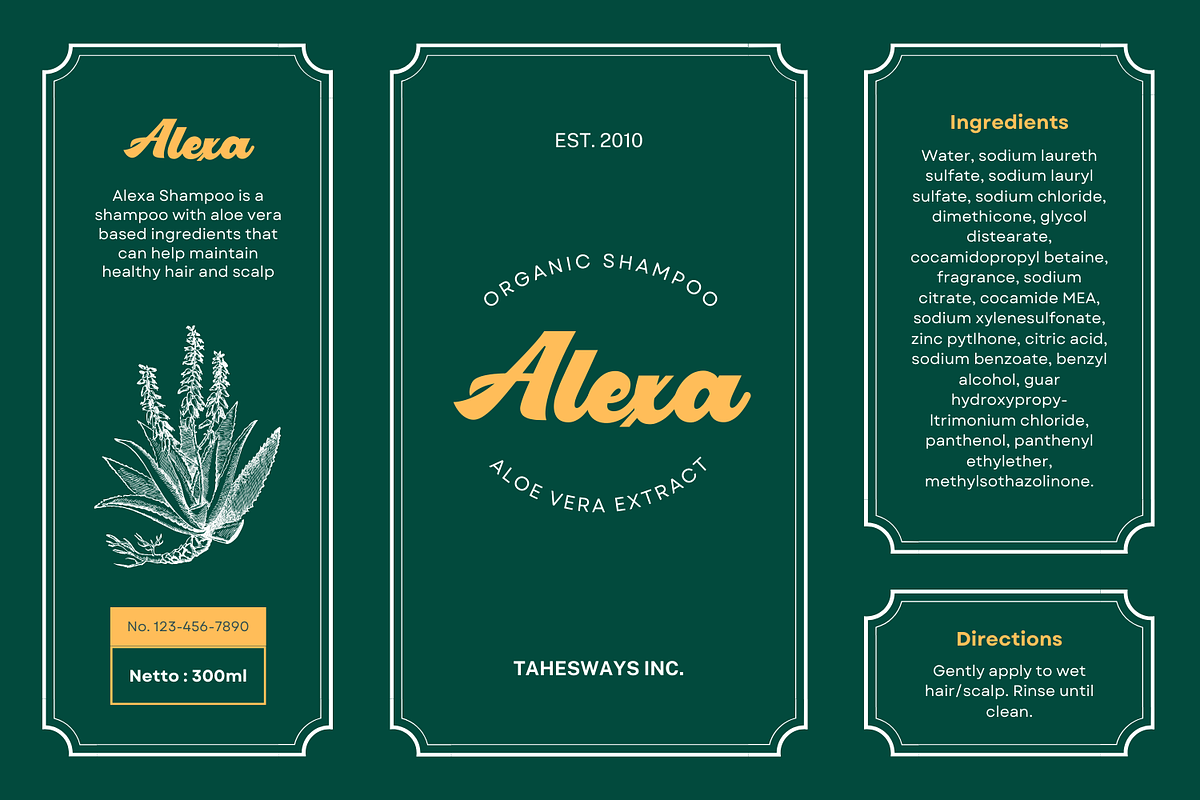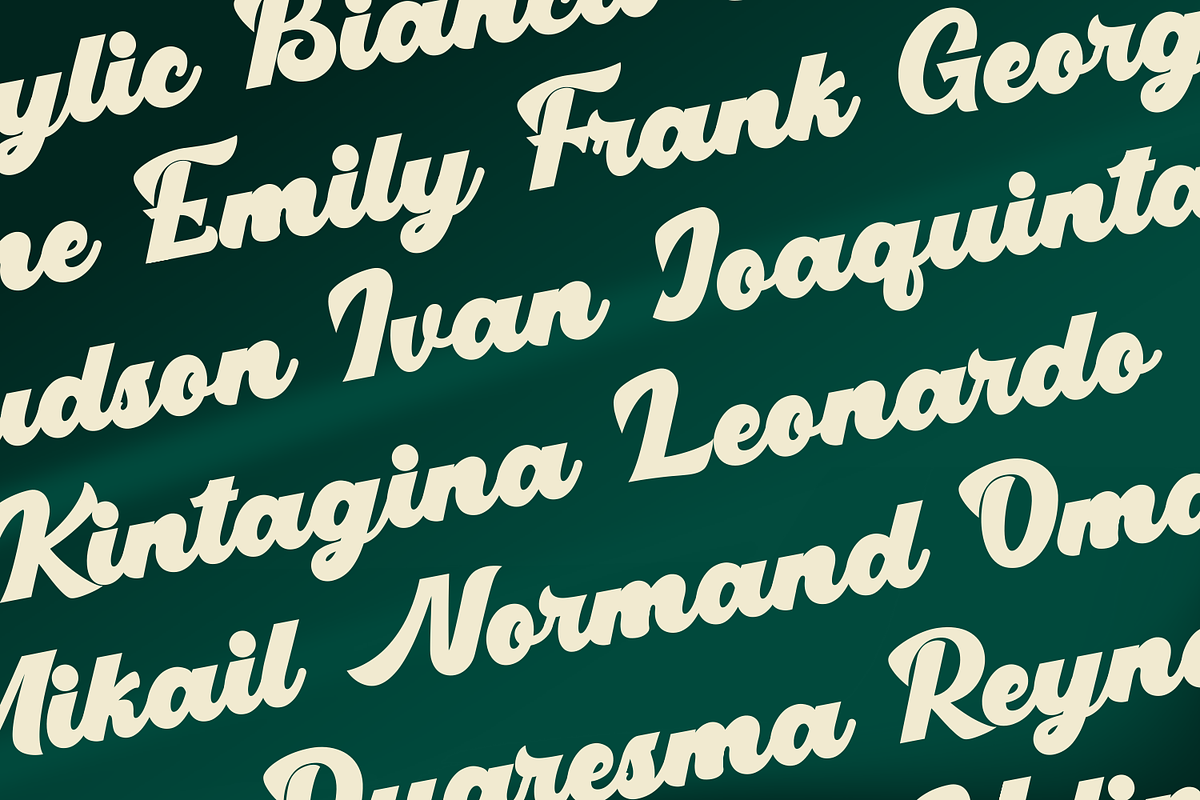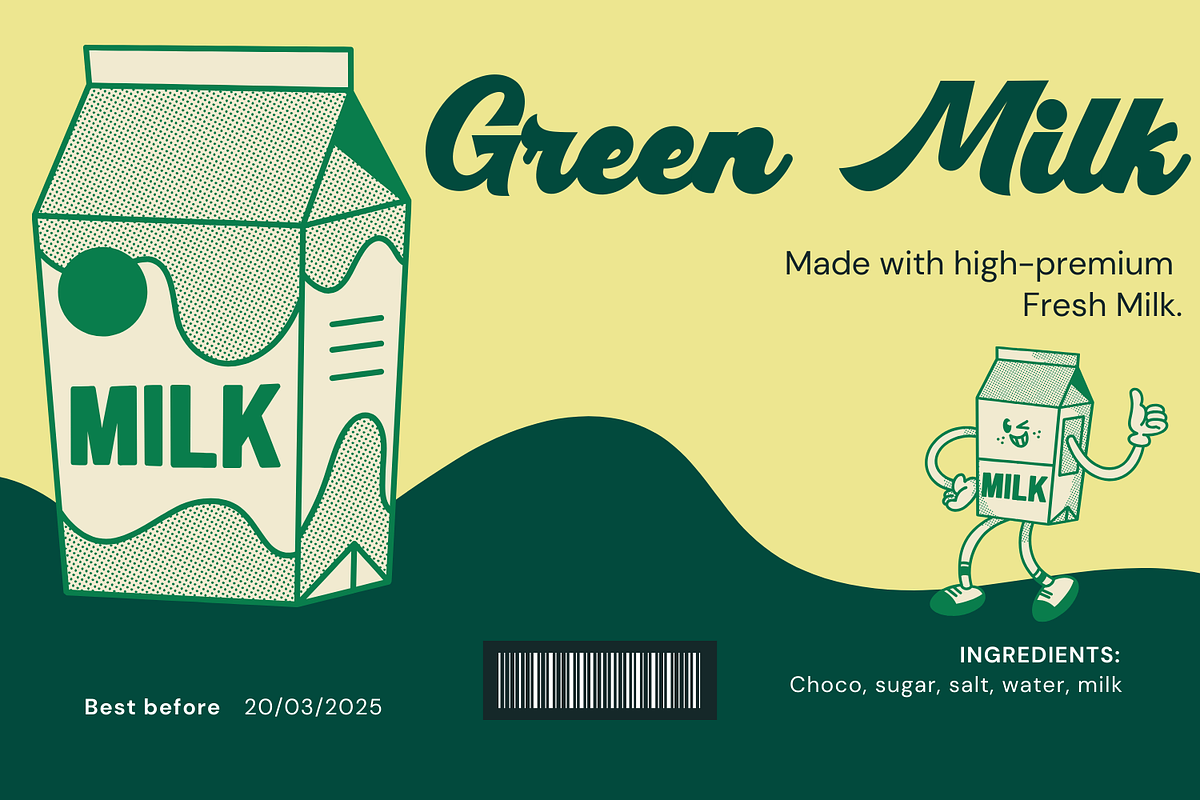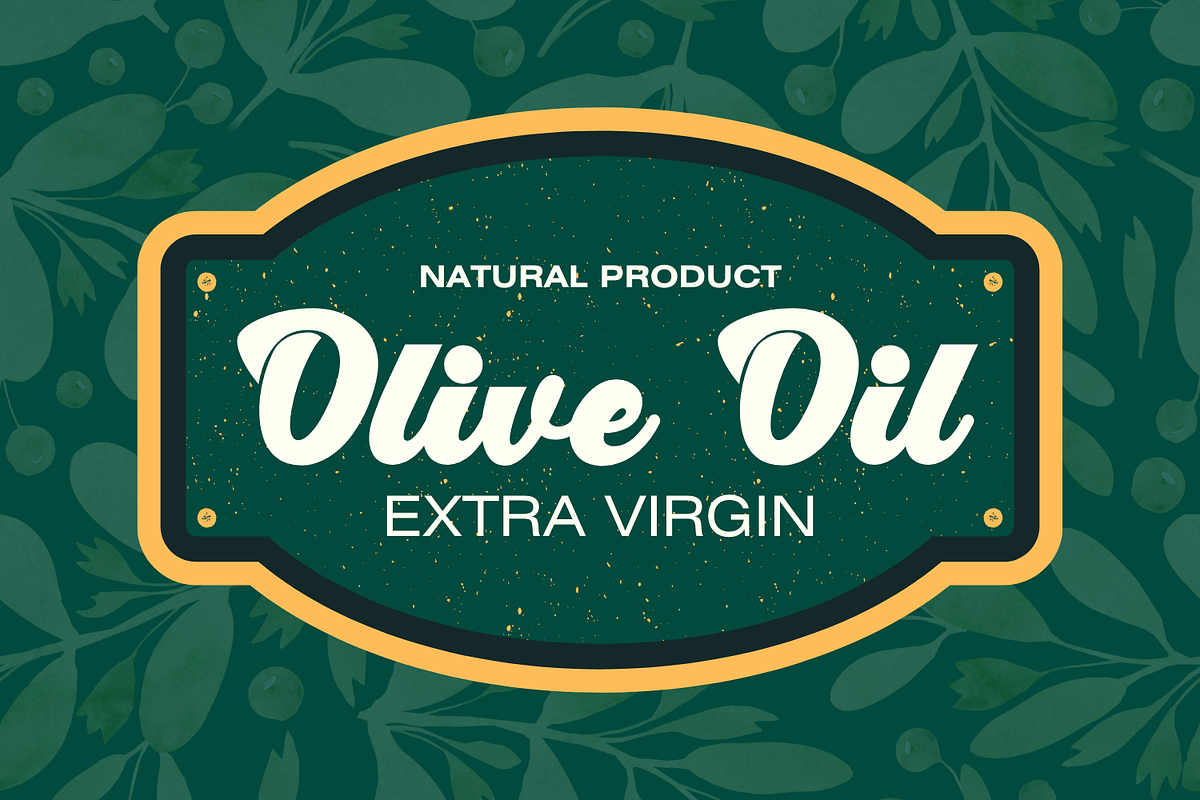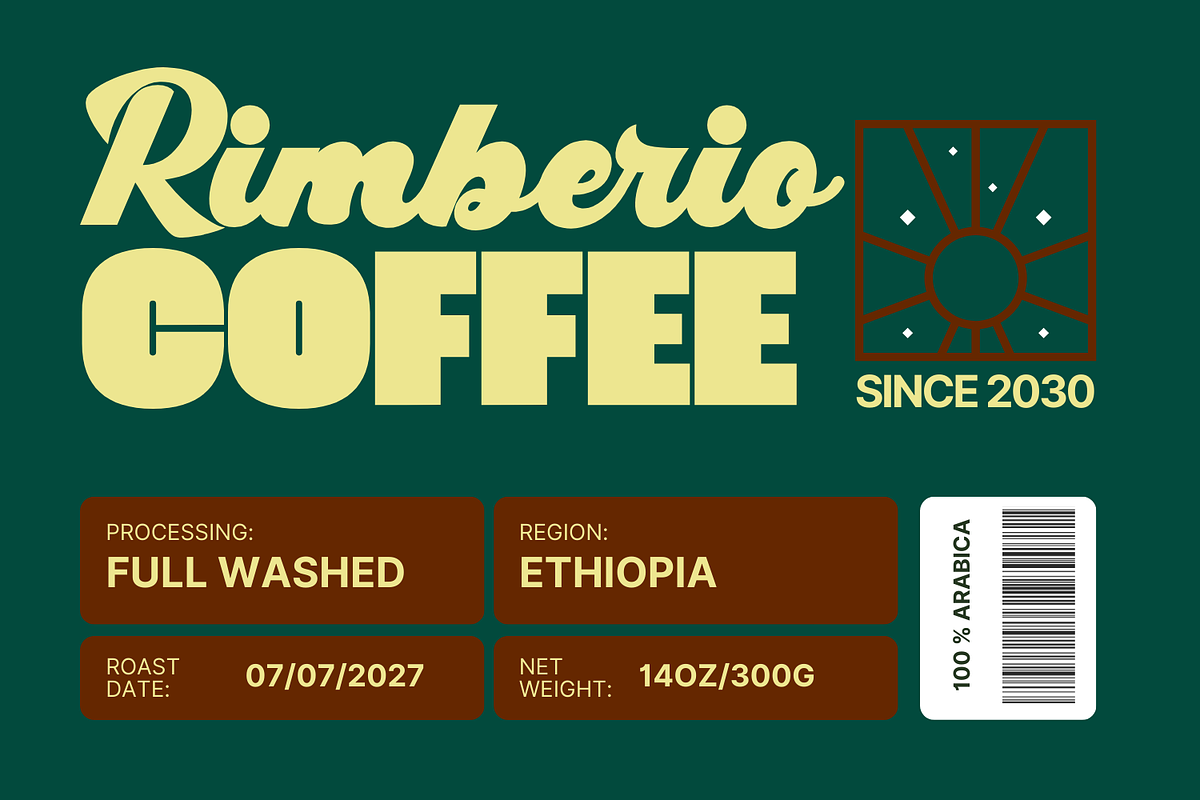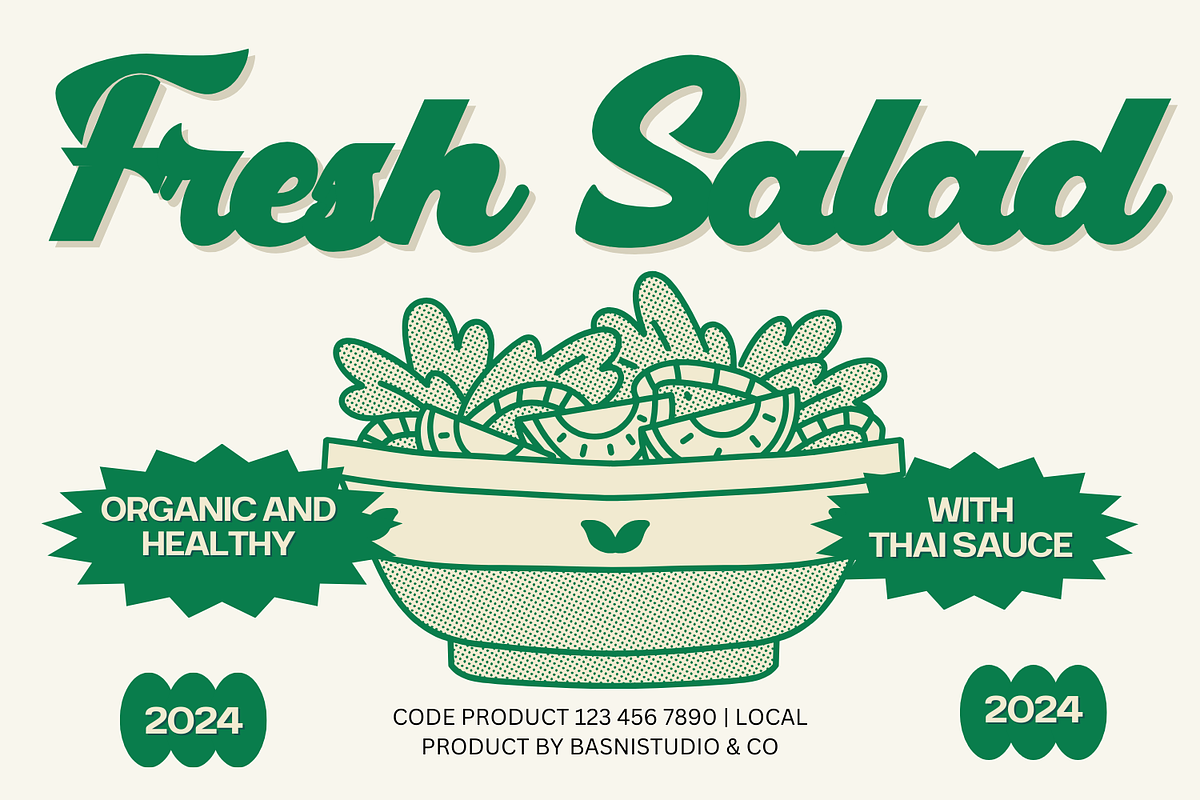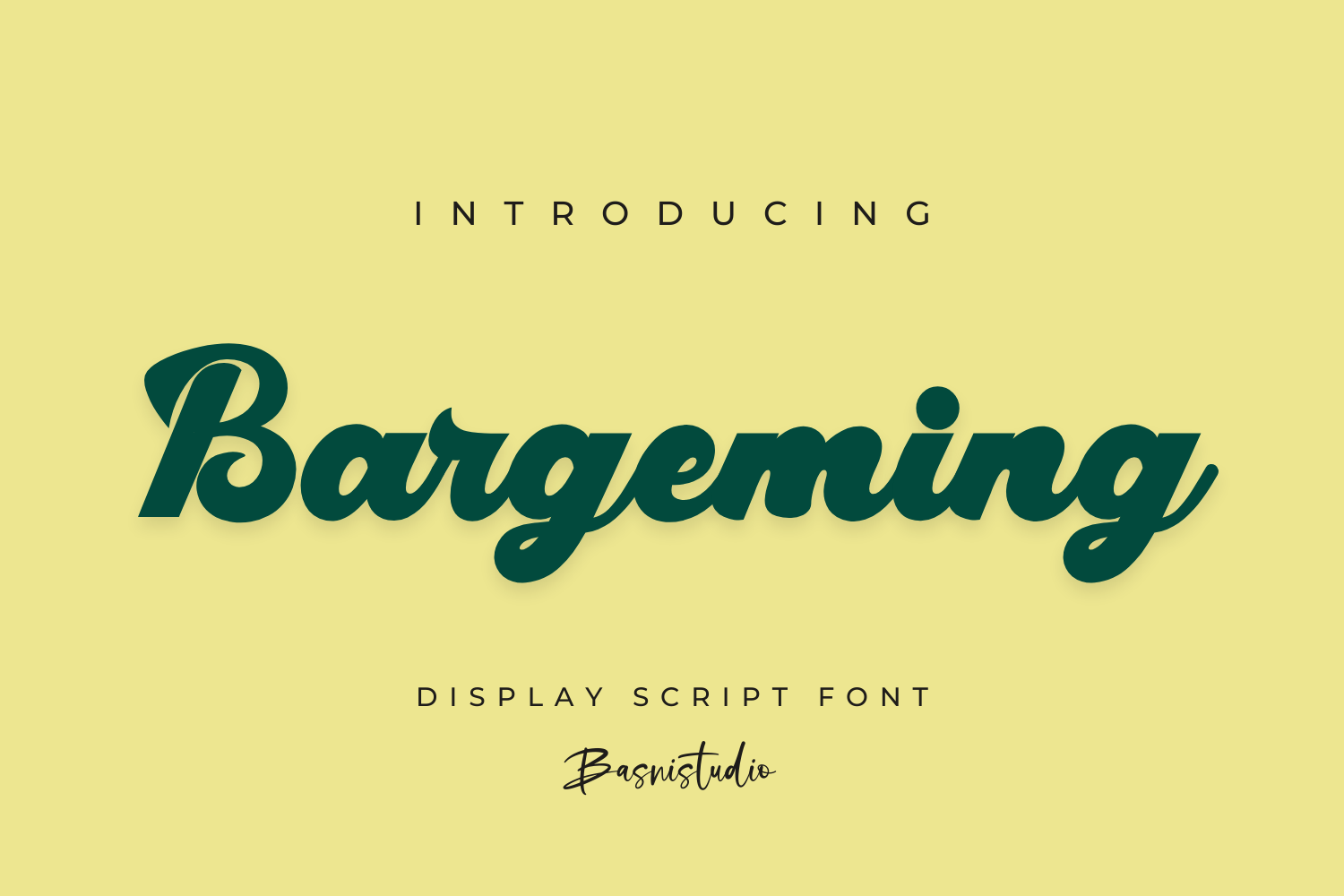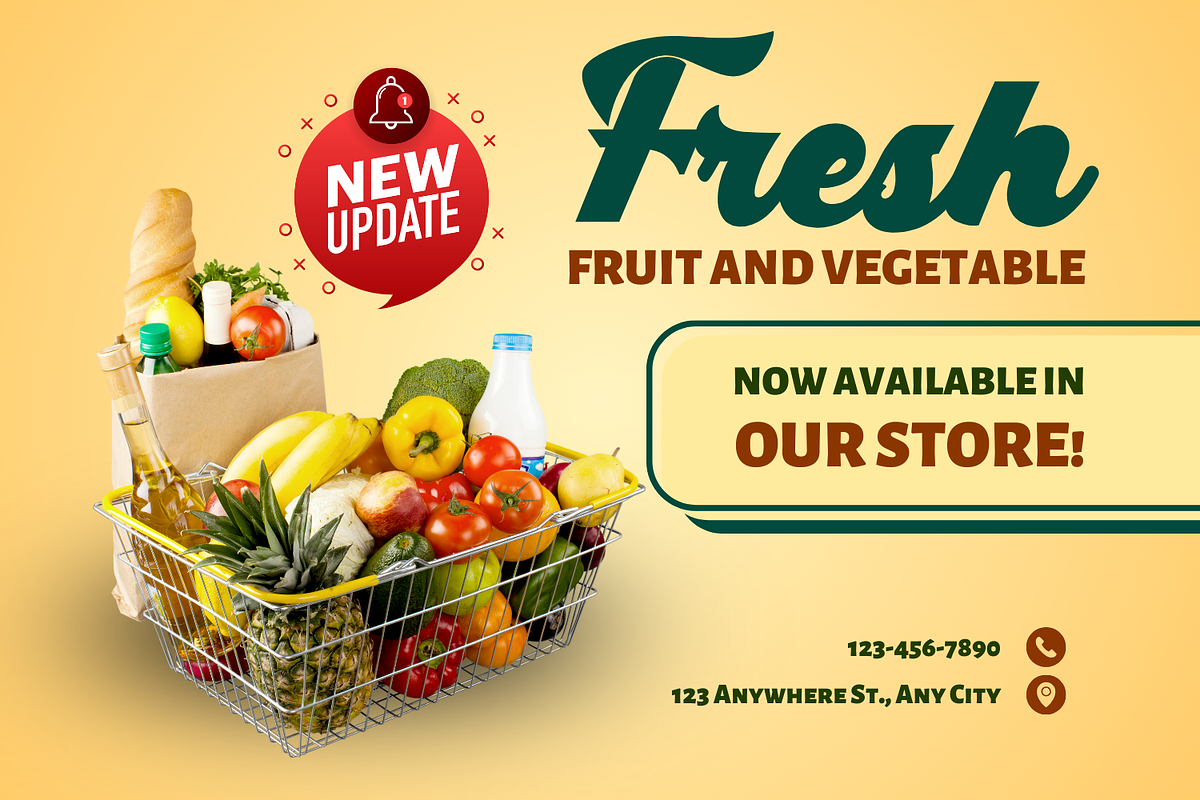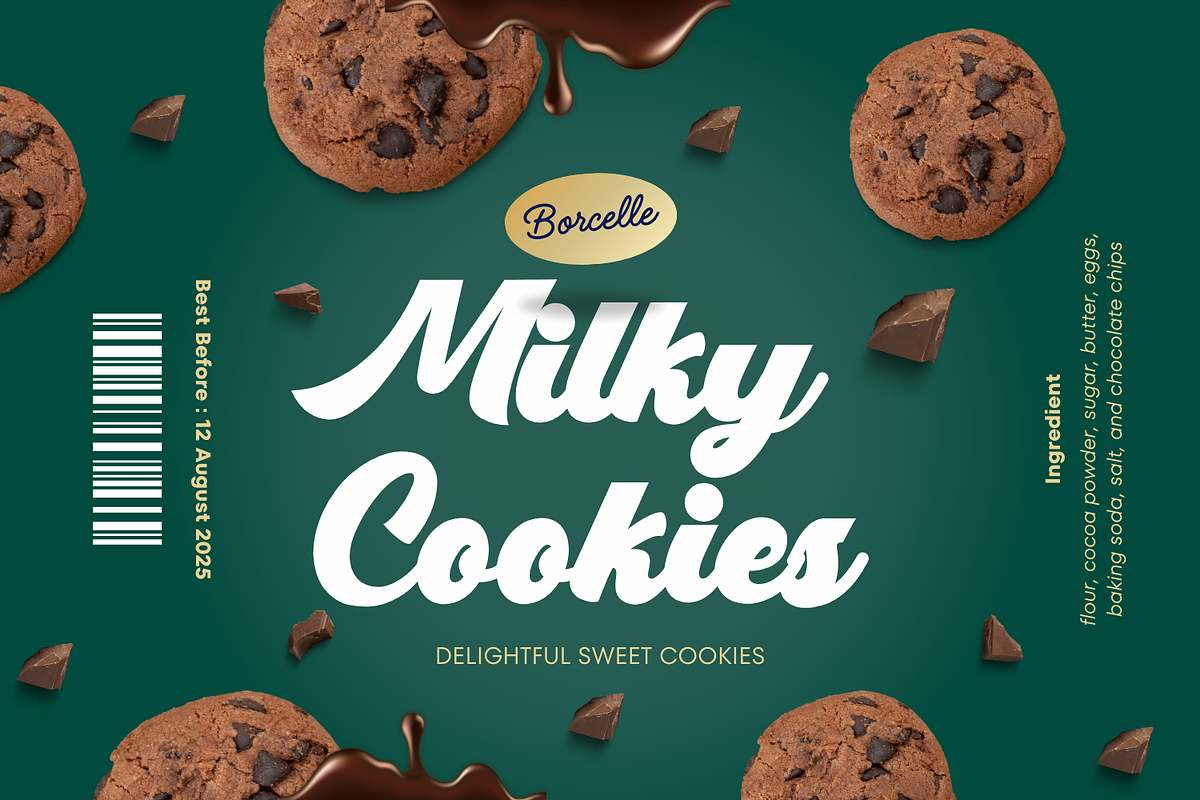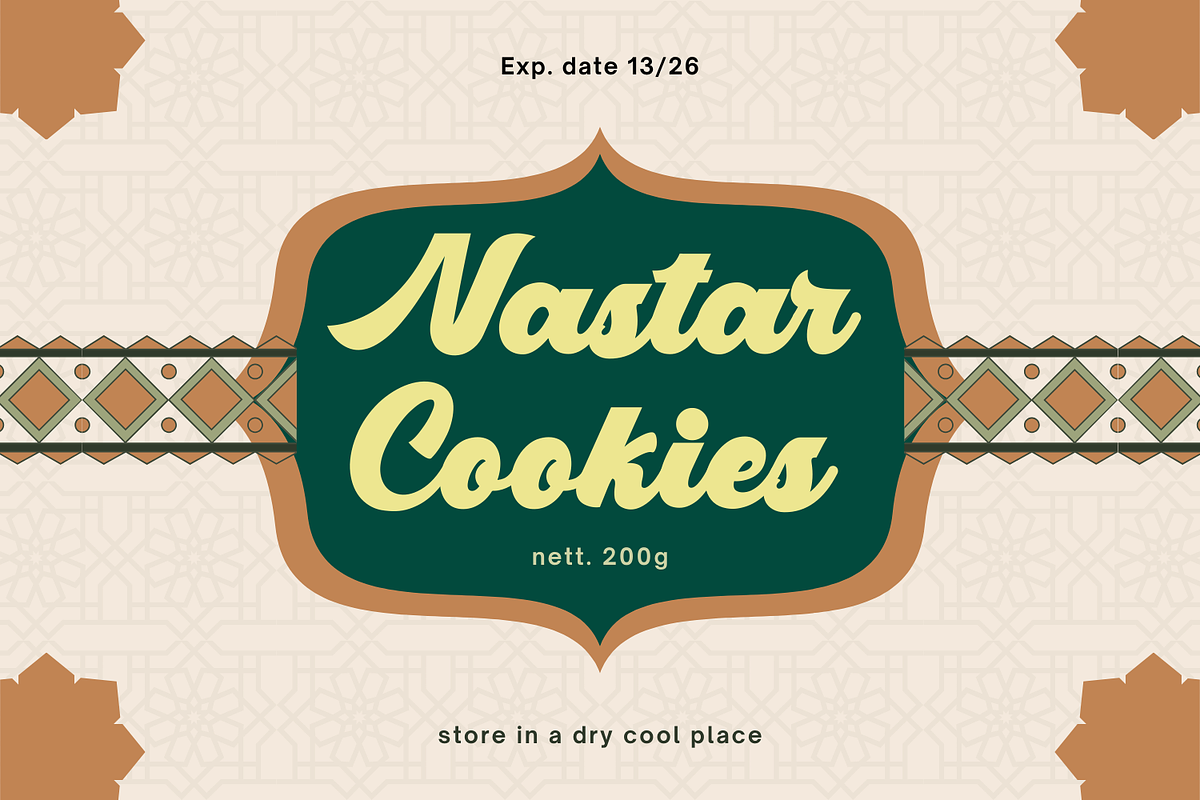
Bargeming Display Script Font
Unleash Your Creativity with Bargeming Display Script Font✨
Looking to add a touch of elegance, charm, or personal flair to your designs? Bargeming Display Script Fontis the perfect choice!
🎨 Why Bargeming Display Script Font? ✔️ Effortless Elegance: Perfectly crafted curves for a timeless handwritten feel. ✔️ Versatile Use: Ideal for wedding invitations, branding, social media graphics, and more. ✔️ User-Friendly: Includes multilingual support, and alternate glyphs for endless creativity. ✔️ High Quality: Designed with precision for both print and digital use.
🌟 Perfect For Personalized greeting cards Creative logos and branding Inspiring quotes and social media posts Beautiful website headers 💡 Make Every Word Stand Out! Transform ordinary text into captivating works of art with Bargeming Display Script Font.